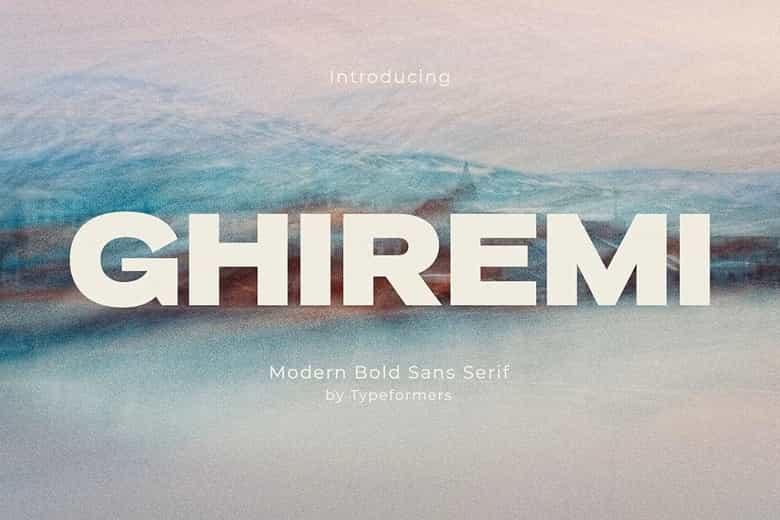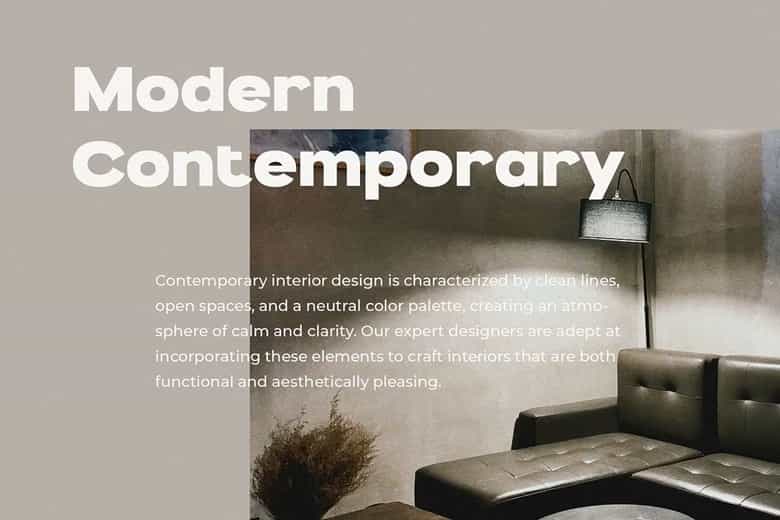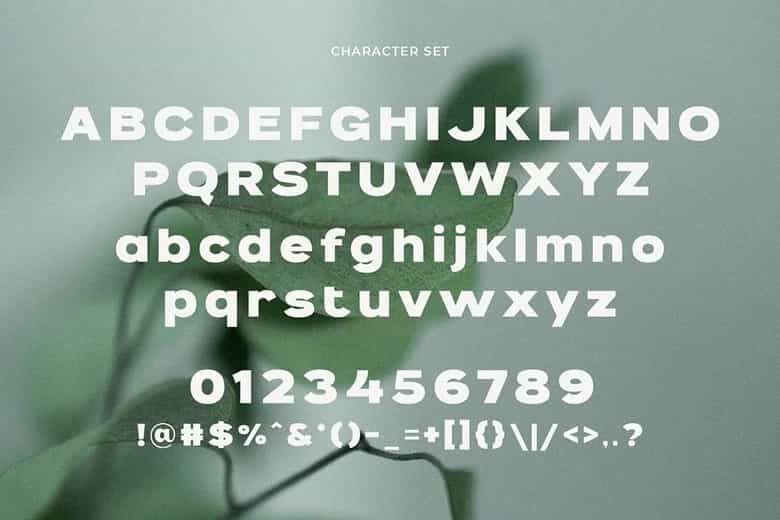
Ghiremi is a modern bold sans serif font manufactured by Typeformers. This is showing its sturdy look, and it stands tall as a great heading. Because this typeface doesn’t take itself too seriously, it would be appropriate for brands that are the same—joyful, bold, happy. The usage on the computer and gaming is excellent, and it would be perfect in headlines and advertising.